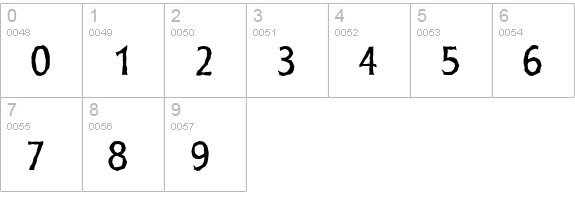
RoundestAntique-Regular Font Details
RoundestAntique-Regular is the standard, neutral variant in the RoundestAntique typeface family \xE2\x80\x94 well suited to general body text, paragraphs, and standard typographic work.
RoundestAntique-Regular font is a charming and elegant typeface that exudes a timeless appeal. Its rounded edges and antique-inspired design give it a unique and sophisticated look that is perfect for a wide range of design projects. Whether you are creating invitations, branding materials, or website designs, this font is sure to make a lasting impression. What sets RoundestAntique-Regular font apart is its versatility and readability. The rounded shapes of the letters make it easy to read while adding a touch of whimsy and personality to your text. This font is a great choice for adding a touch of vintage flair to your designs, while still maintaining a modern and polished look. Best of all, RoundestAntique-Regular font is available for free download at FontsMarket.com. This means you can easily access this beautiful typeface and incorporate it into your projects without any cost. Don't miss out on this wonderful opportunity to enhance your designs with the timeless charm of RoundestAntique-Regular font.